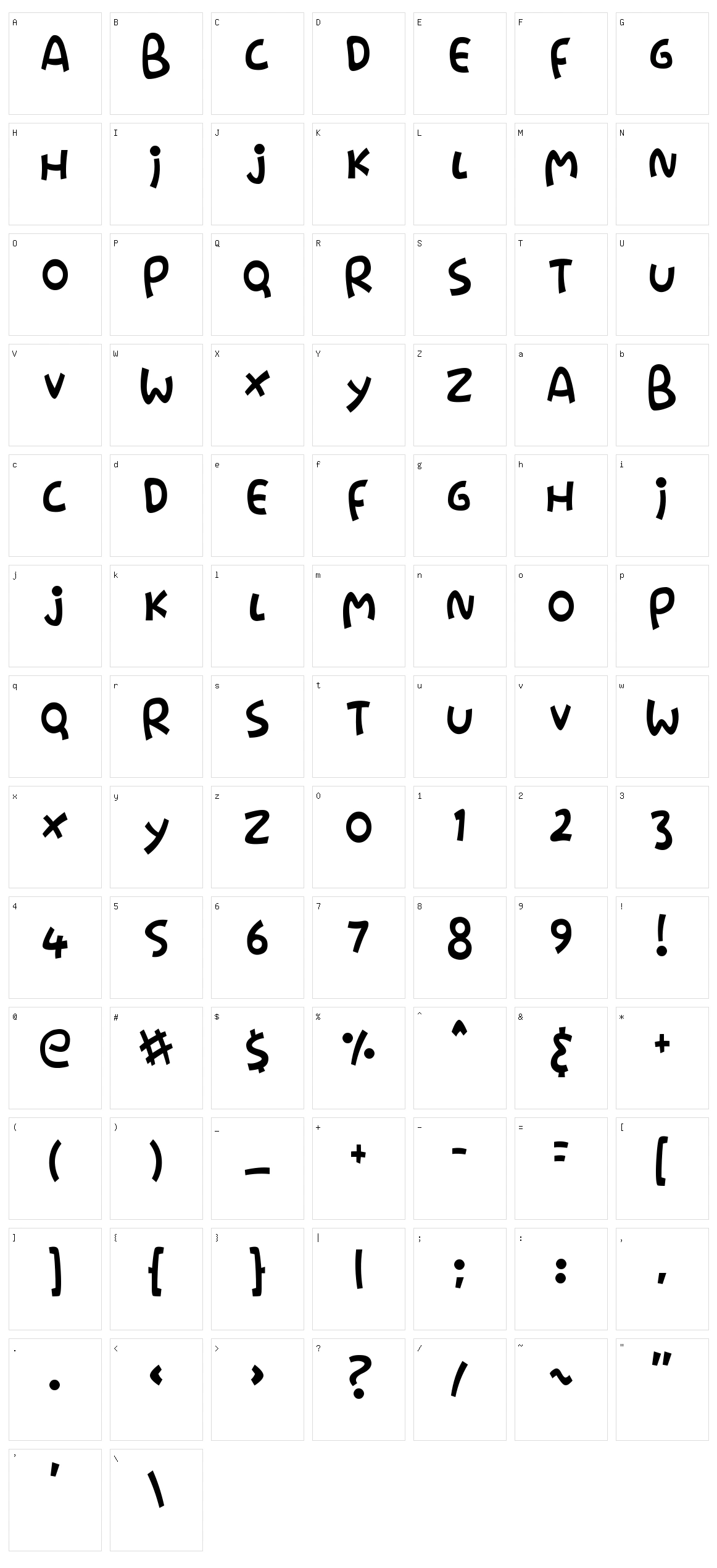
The free font Stringz is carefully designed by Hawtpixel, showcasing a thoughtful balance of creativity and usability and falls under the Cartoon font style. When you download the ZIP file, it contains only 84.43 KB of font files, making it lightweight and quick to download. Please review the license details below to understand permitted usage and distribution rights. If license information is not available, we recommend using this font for personal projects only or contacting the author directly for commercial usage permissions.